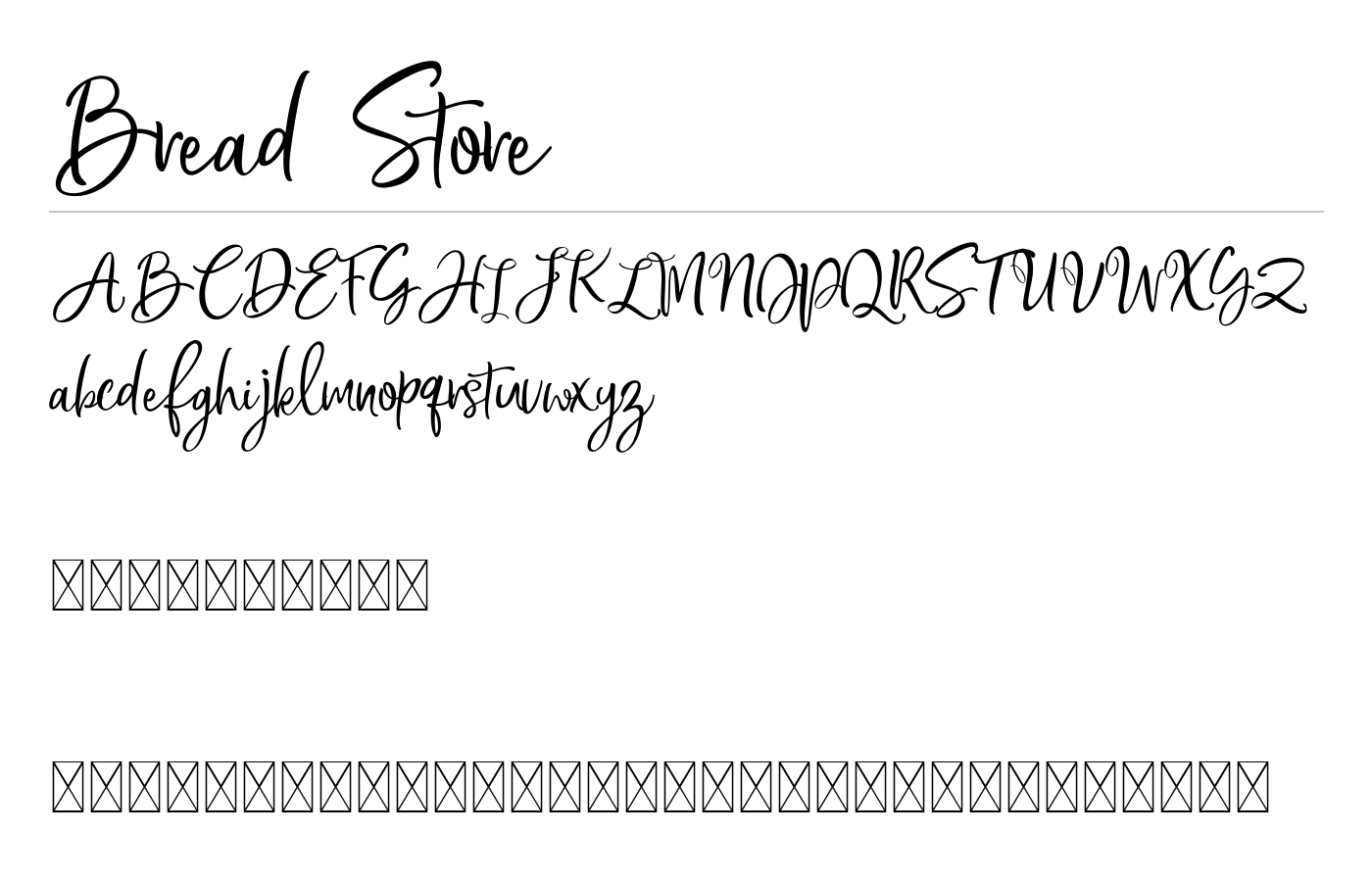
Bread Store is a playful and elegant script font featuring lively, handwritten letterforms with a casual yet refined feel. Its thin strokes and whimsical curves create an inviting, friendly vibe perfect for lifestyle branding, invitations, and boutique packaging. This font suits designs that want to convey warmth and creativity with a modern handwritten charm.
Bread Store Font
About Bread Store Font
| Font family | Bread Store Font |
| Designer | Burhan Afif |